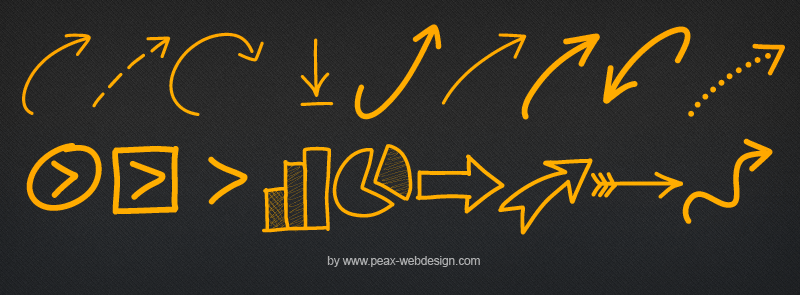
A new pack of arrows and other things, that could be useful for your projects. Free for commercial and personal projects. Follow me on Facebook fr-fr.facebook.com/peax.webdesign and plus.google.com/102174805706878975433 for future fonts |